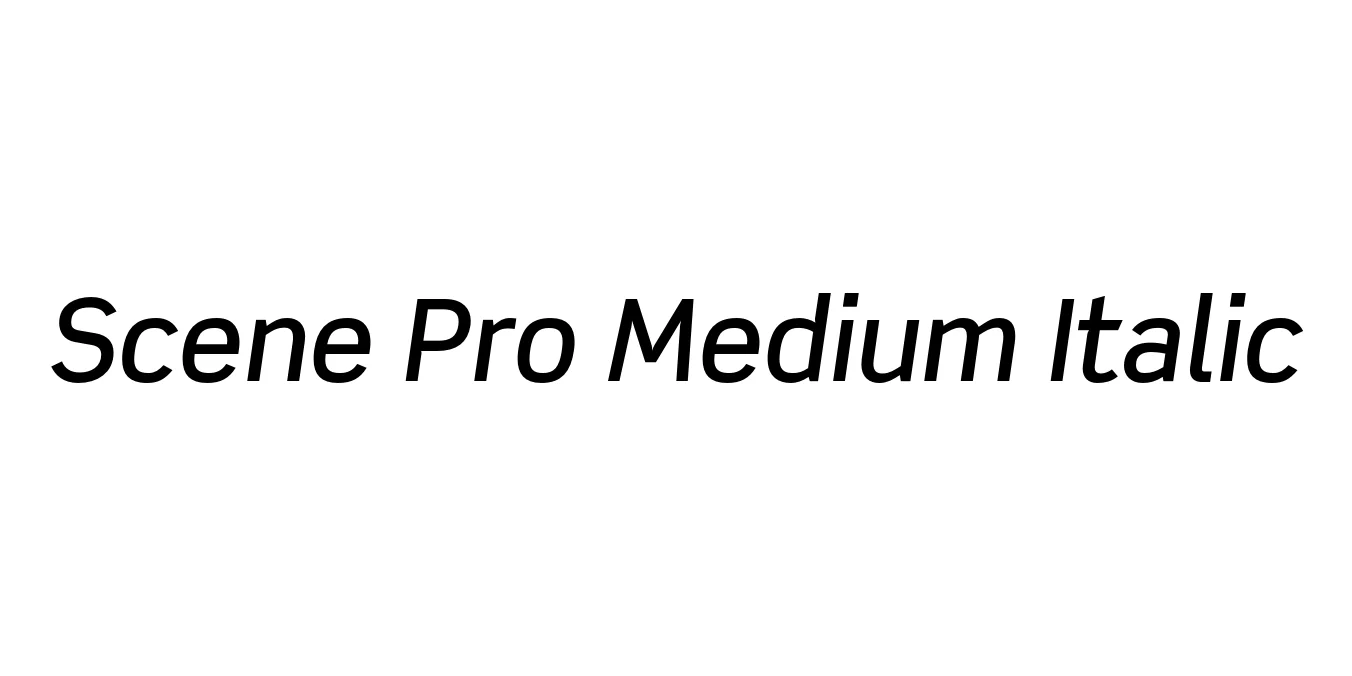
Scene Pro Medium Italic
Designed by Sebastian Lester
Scene Pro is a sophisticated and highly versatile sans-serif typeface family designed by the renowned British designer Sebastian Lester for Monotype. Created to bridge the gap between corporate clarity and creative elegance, this font family balances geometric precision with subtle humanistic influences. The 'Pro' version features an expanded character set, including extensive language support and advanced OpenType features, making it a staple for international branding and high-end design projects.
The Medium Italic weight provides a refined rhythmic flow that is both distinctive and highly legible. It is specifically engineered to offer emphasis without disrupting the visual harmony of a page. Its clean lines and modern aesthetic make it an exceptional choice for editorial layouts, professional communication, and digital interfaces where a sense of contemporary authority is required.
Scene Pro Medium Italic Best Uses
Ideal for logos and official business documentation.
Perfect for pull-quotes, captions, and sidebars in premium magazines.
Clean and legible for navigation menus and modern UI components.
Adds a touch of sophisticated flair to print and digital marketing campaigns.